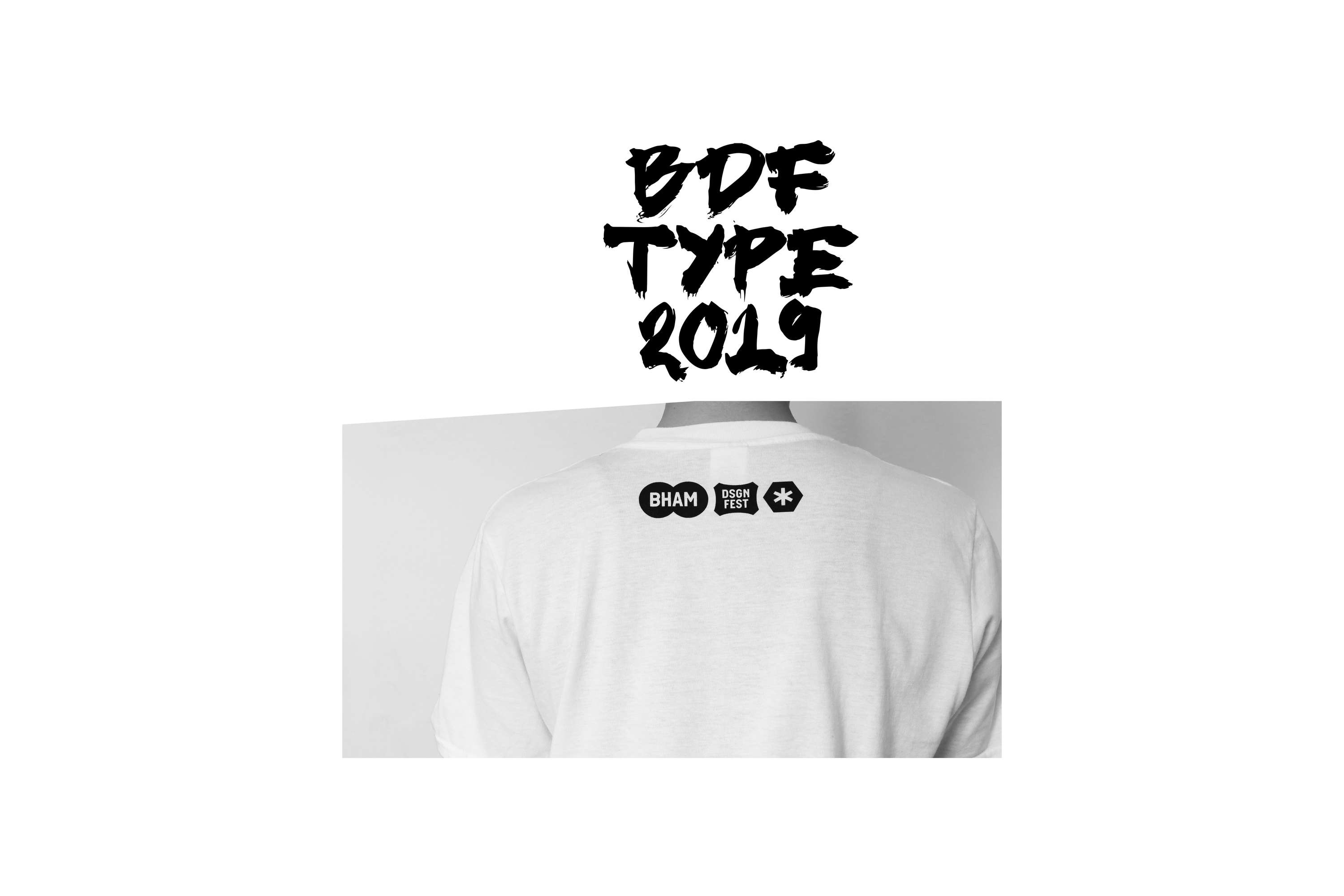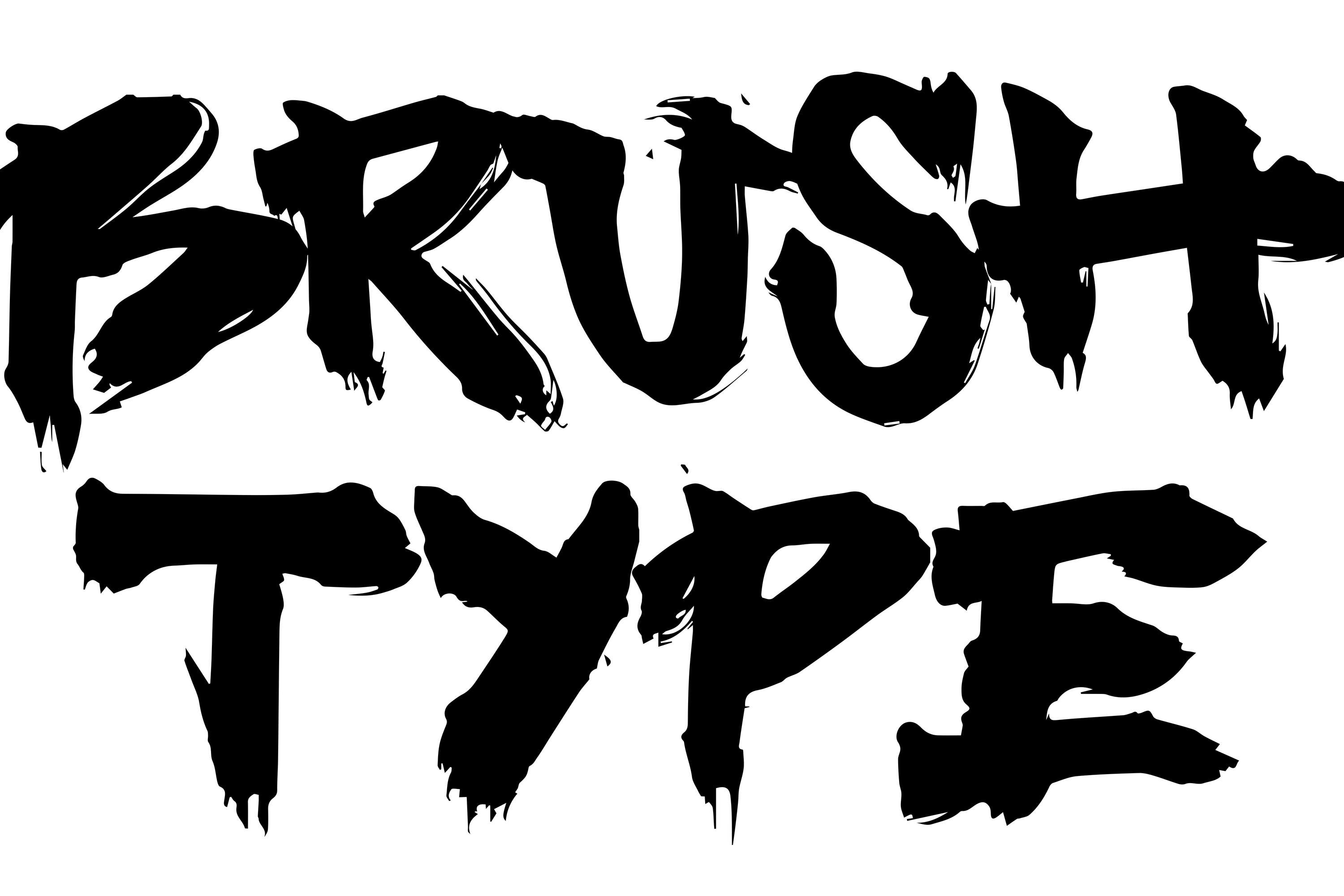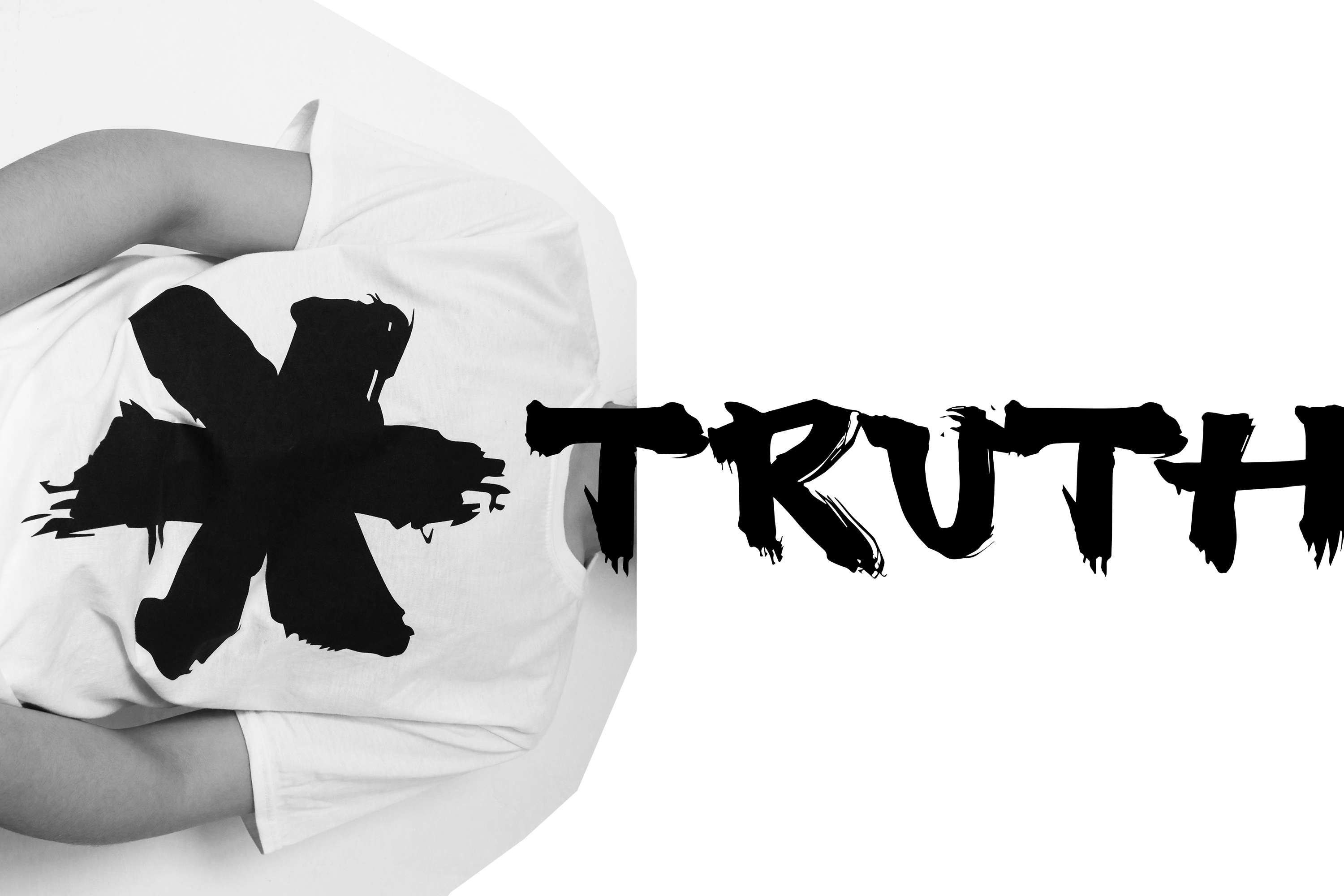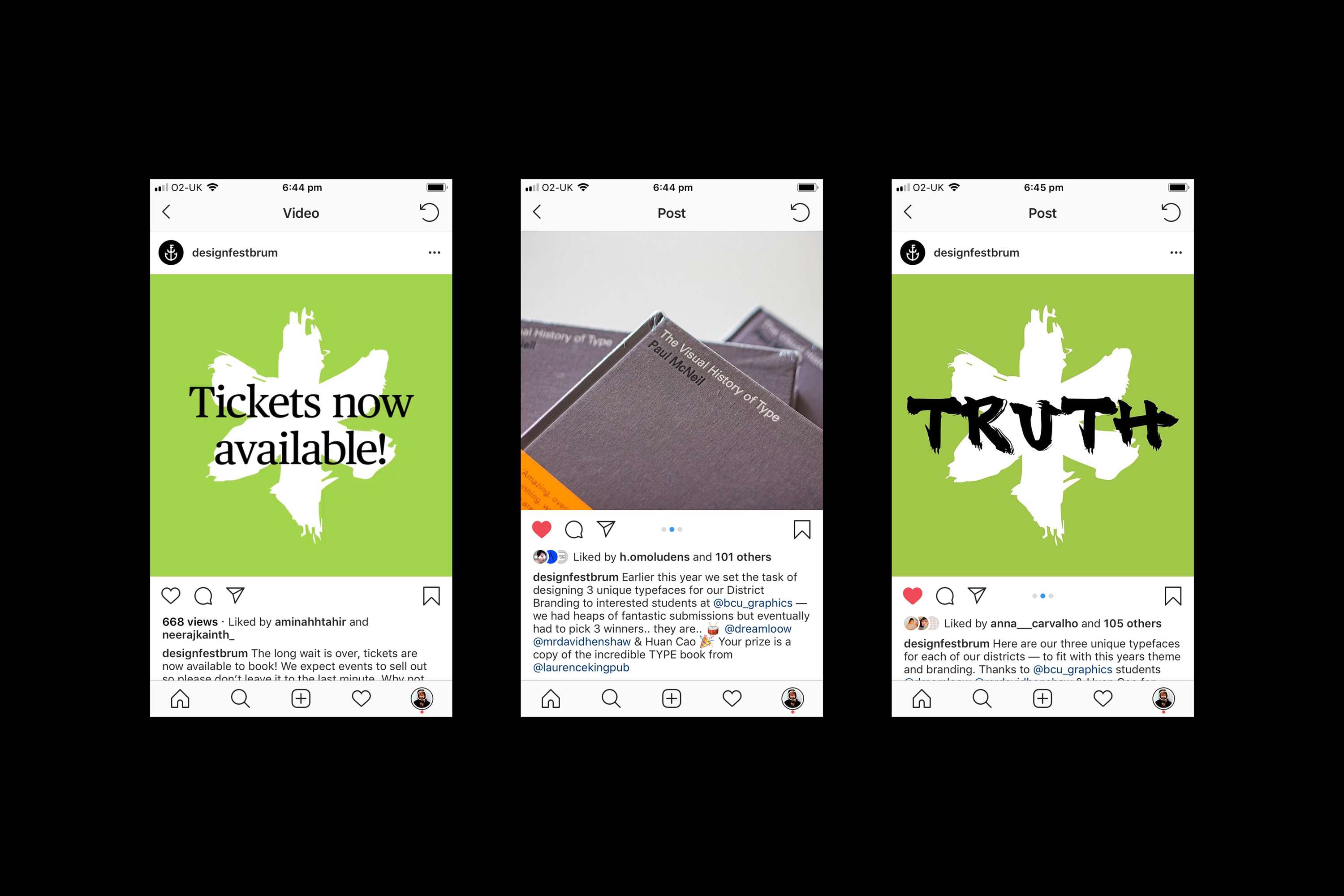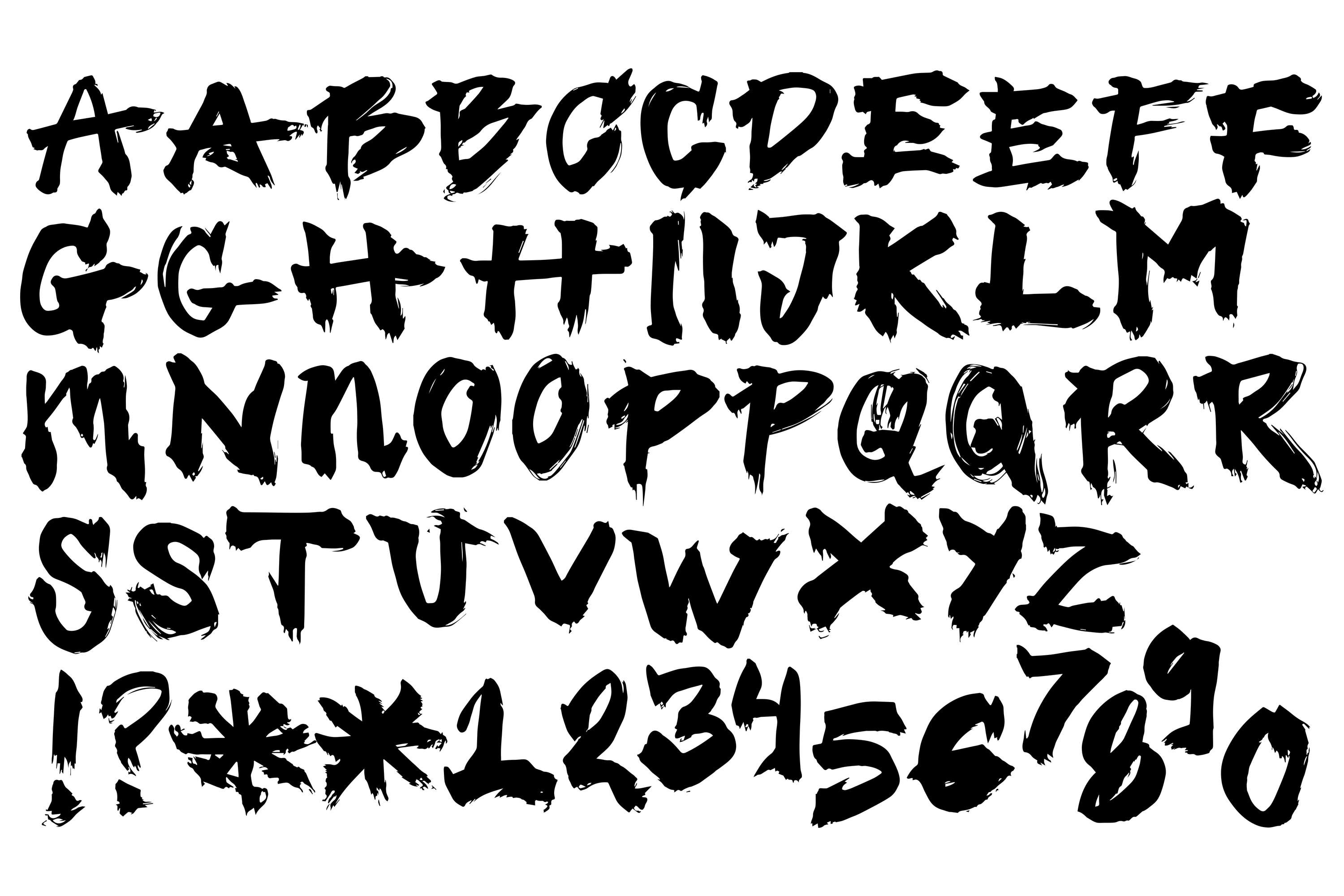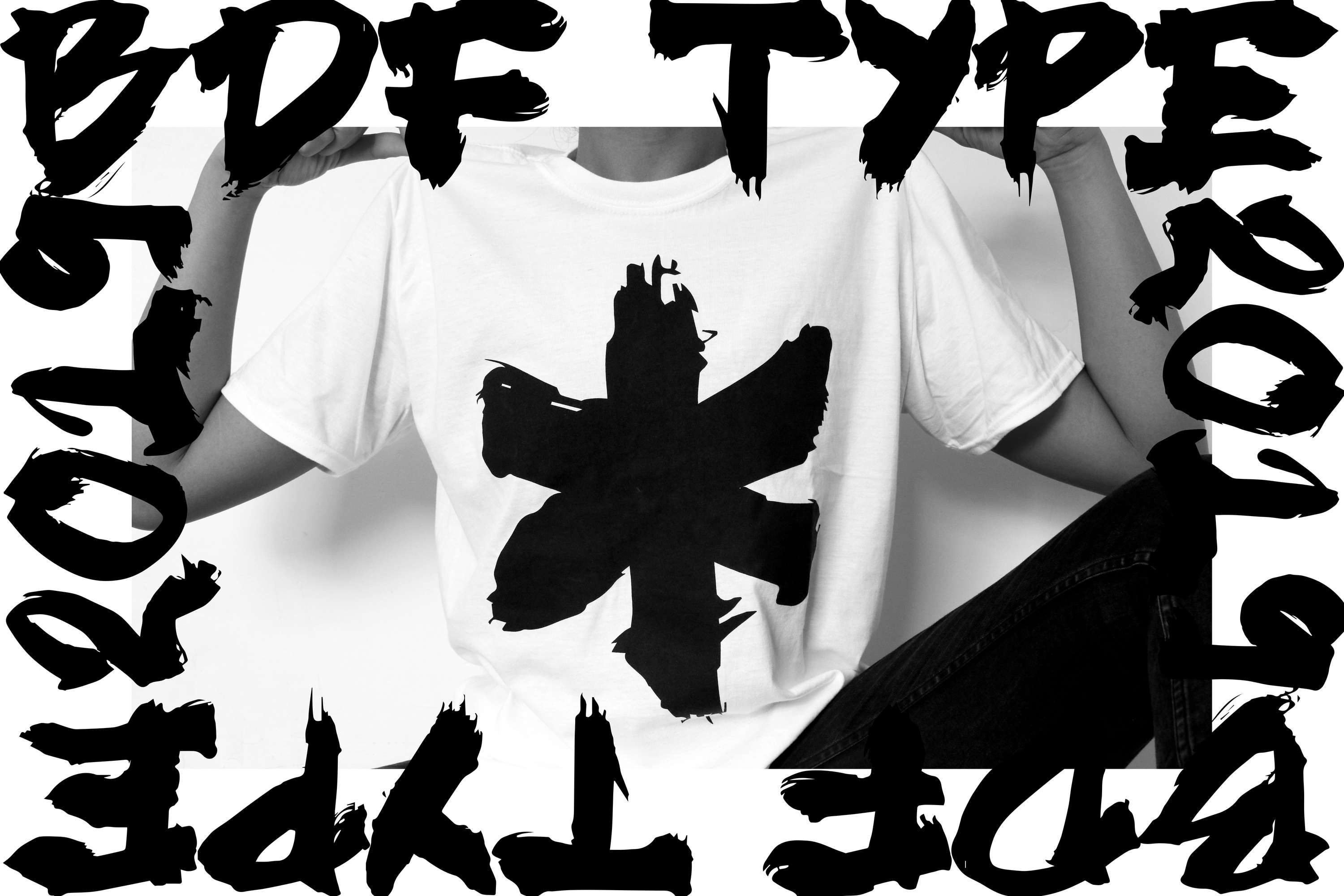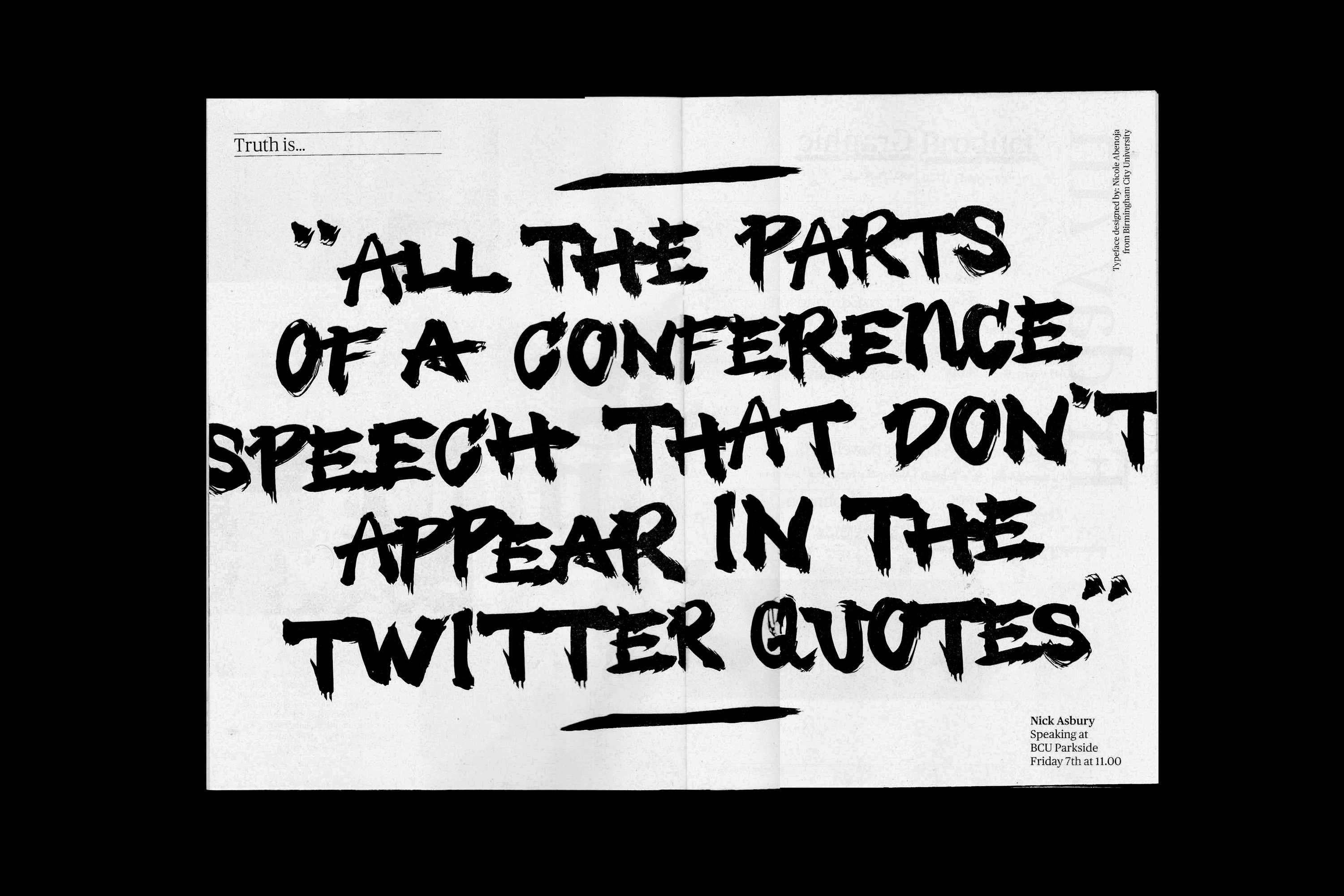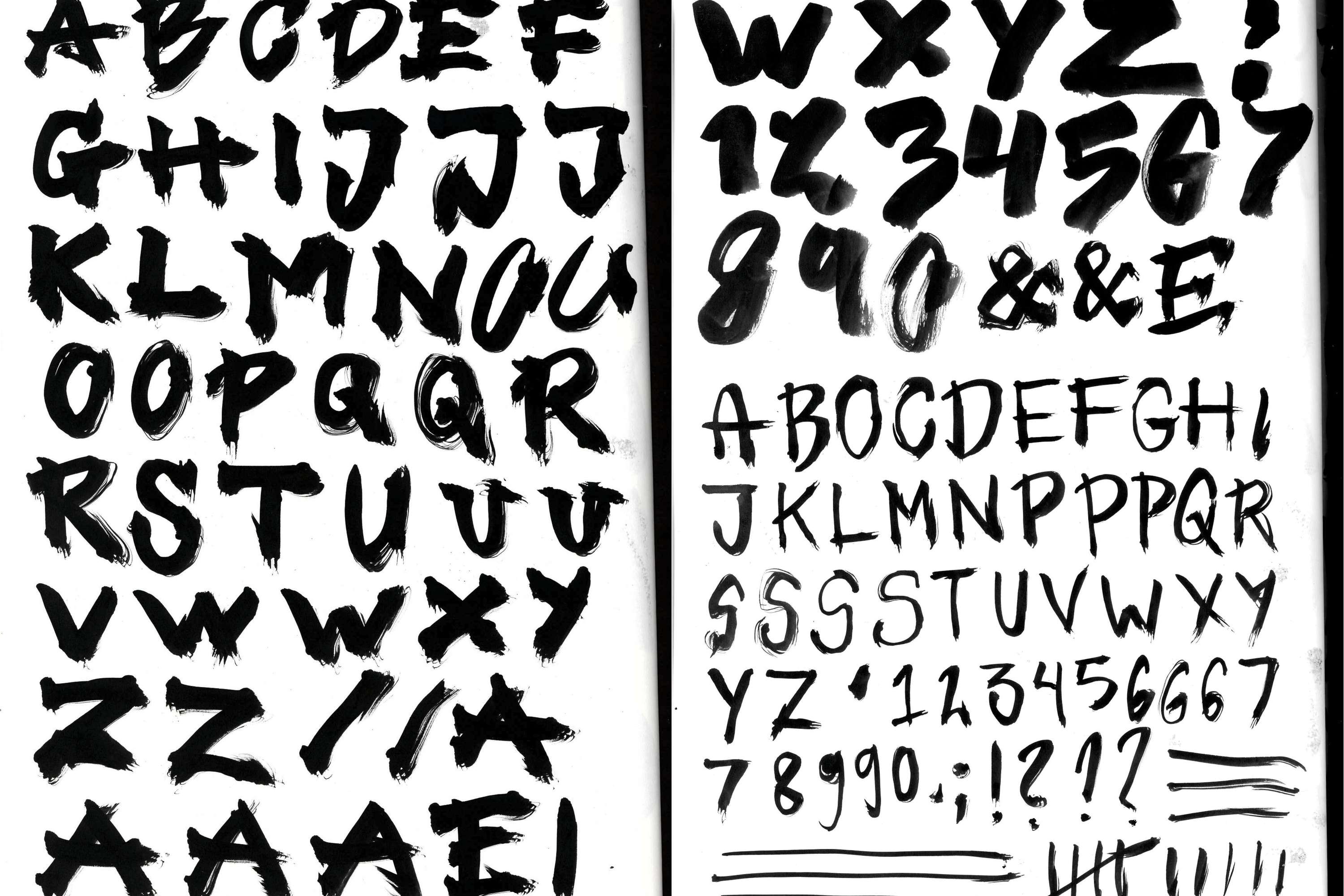
BDF Typeface 2019
• Irish Nicole Abenoja
One half of the producers of the Birmingham Design Festival 'BDF' - Luke Tonge, gave us a typeface brief for the upcoming BDF 2019. My chosen 'Brush Type' represents the Graphics sector. I put this year's theme of 'Truth' to the material and tools that I use - brush and ink; giving this expressive lines and character to the type.
BDF Typeface 2019 by Irish Nicole Abenoja